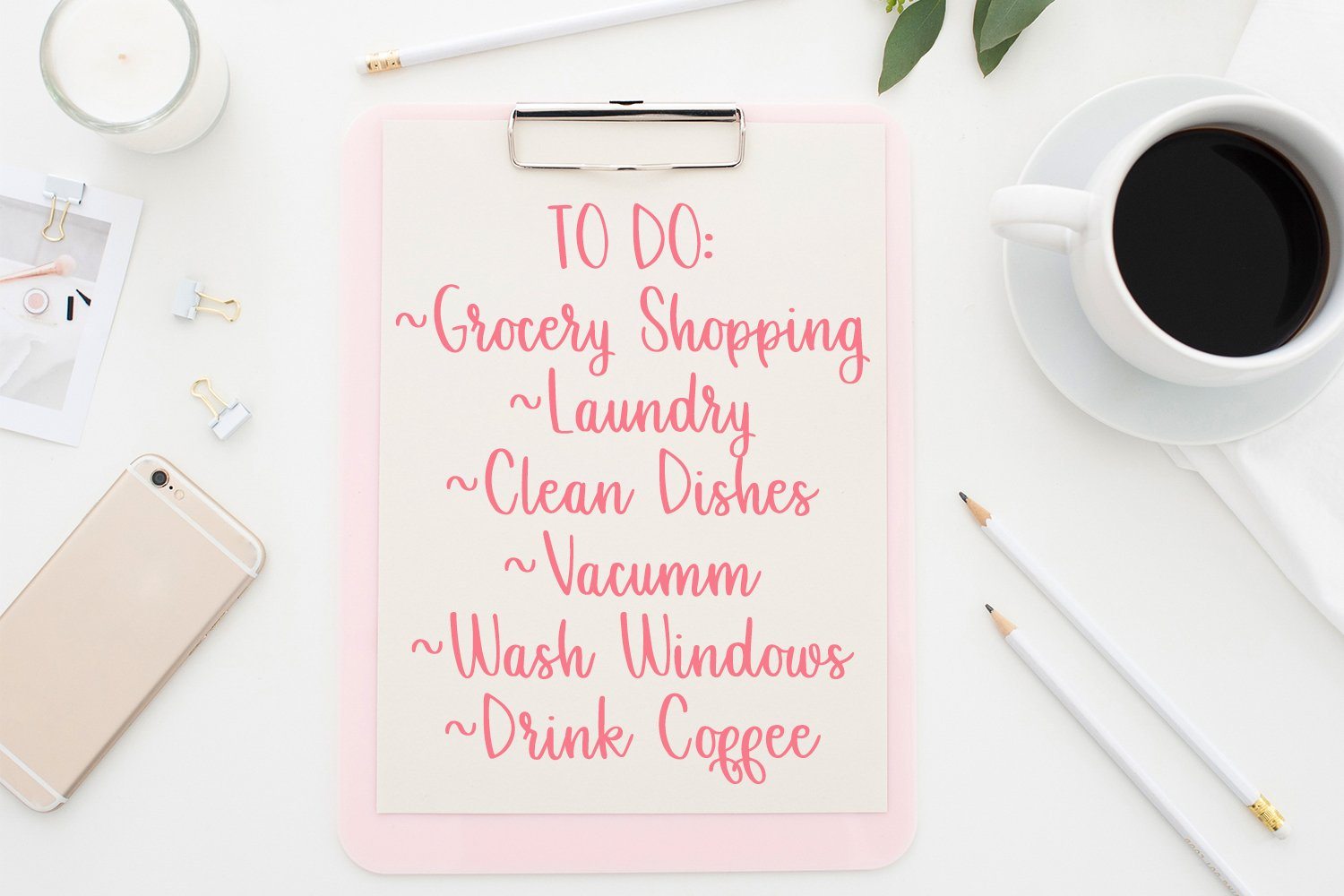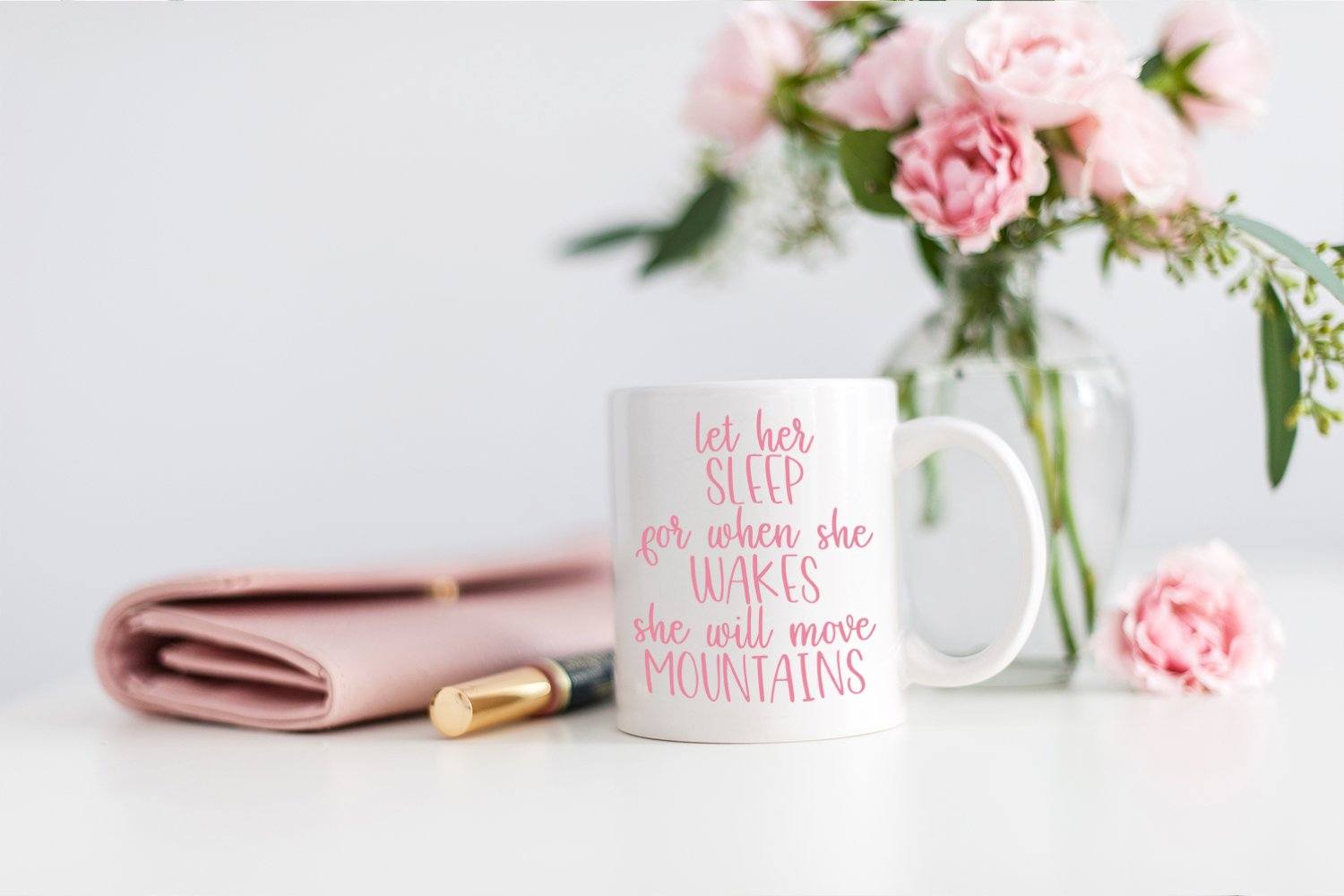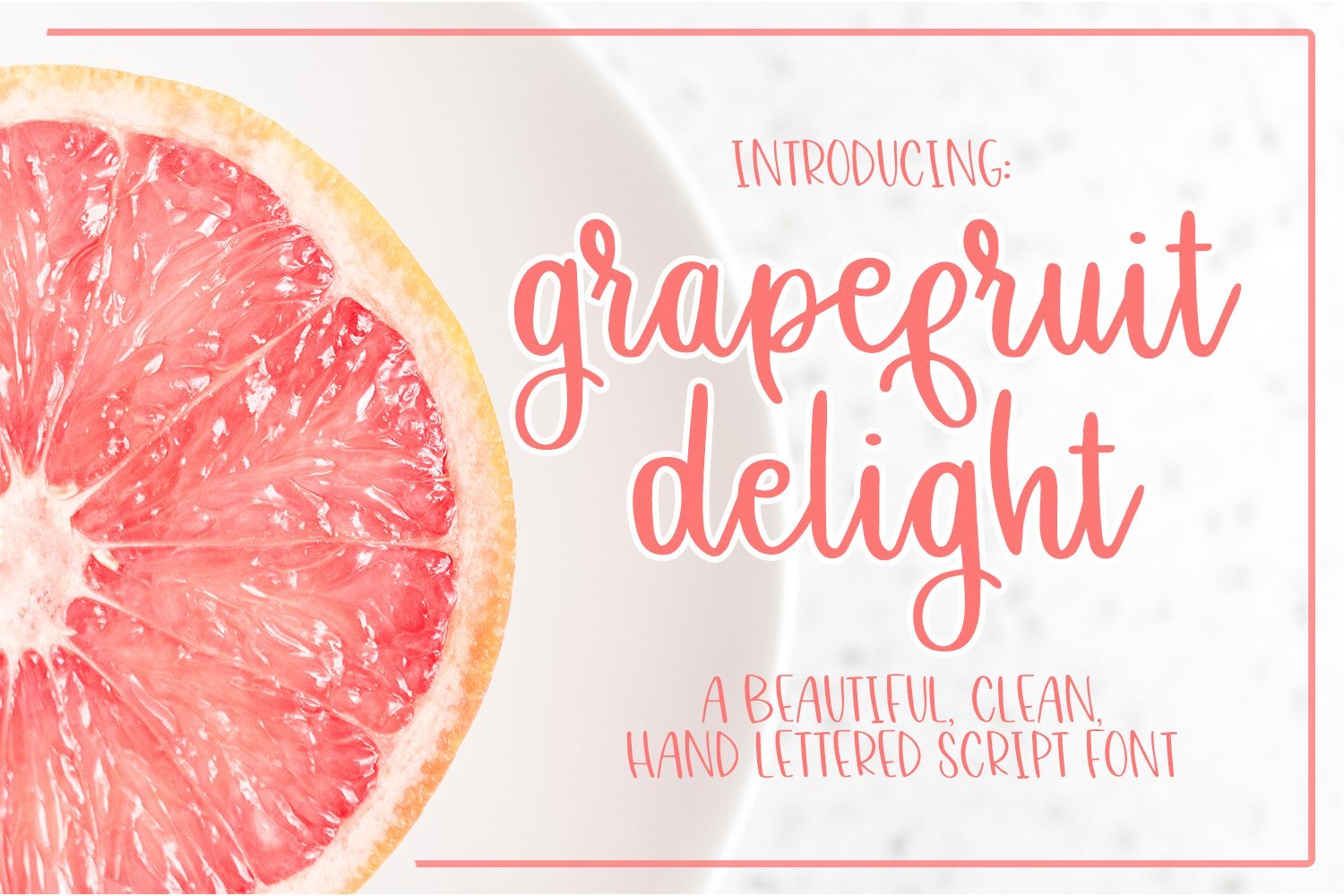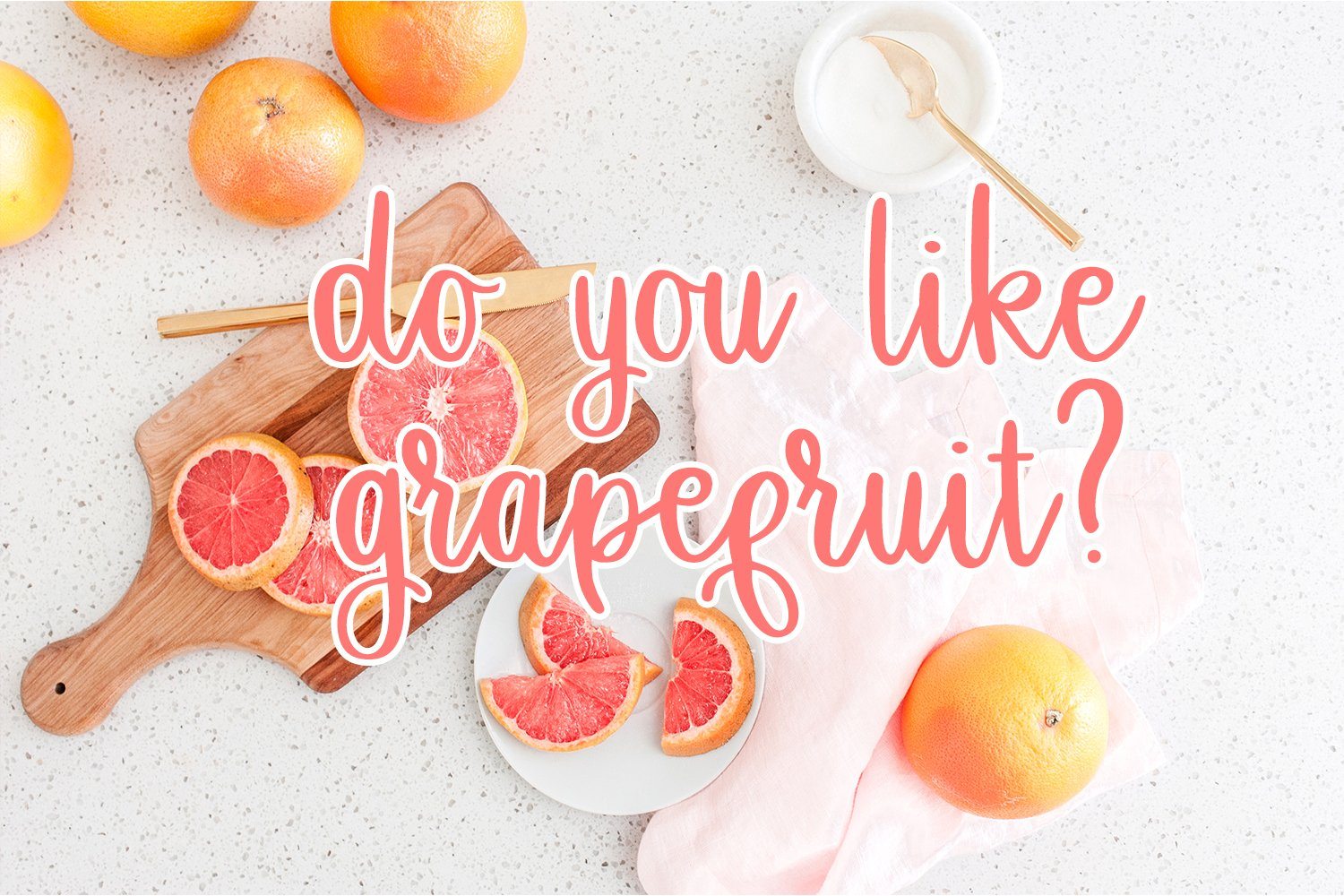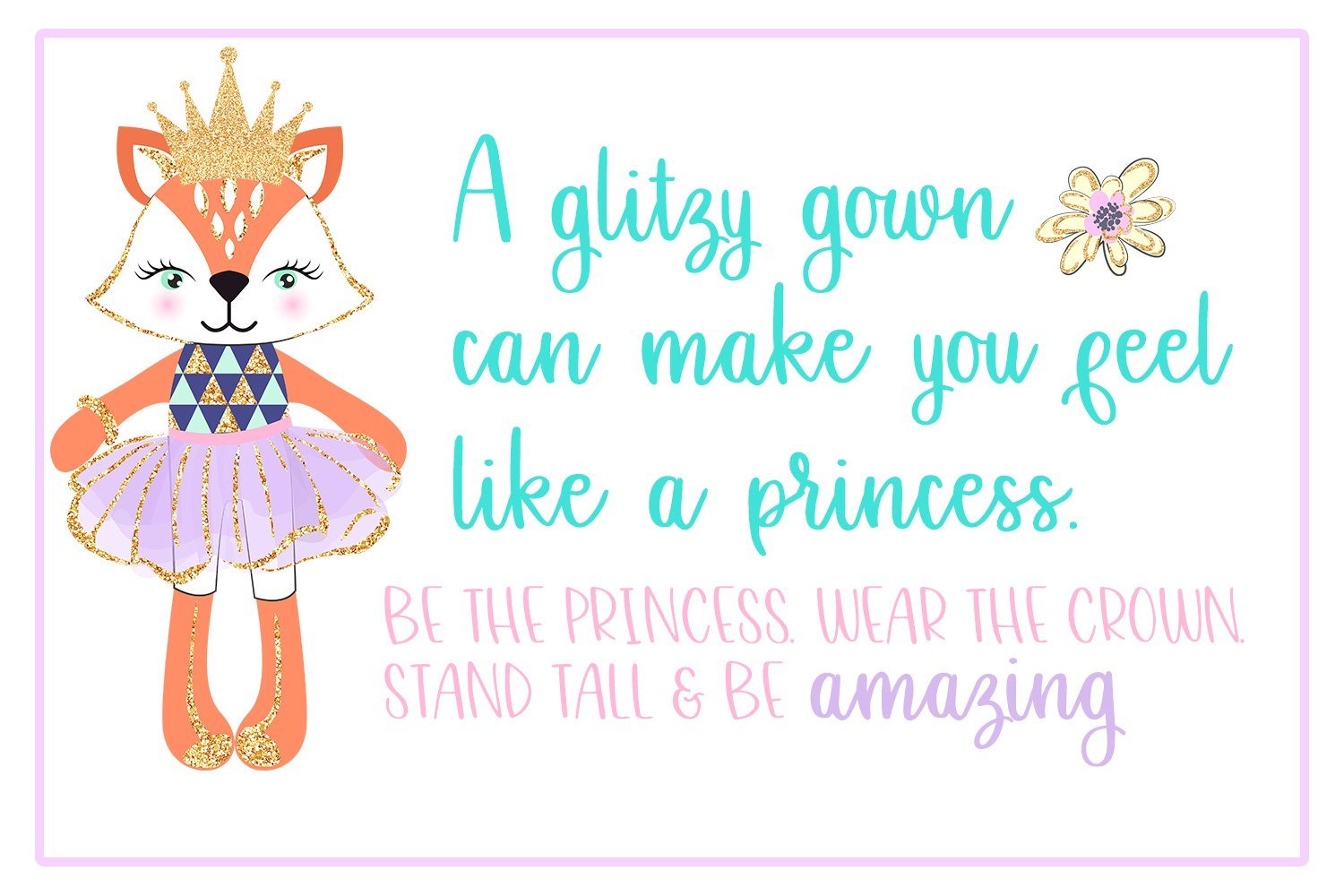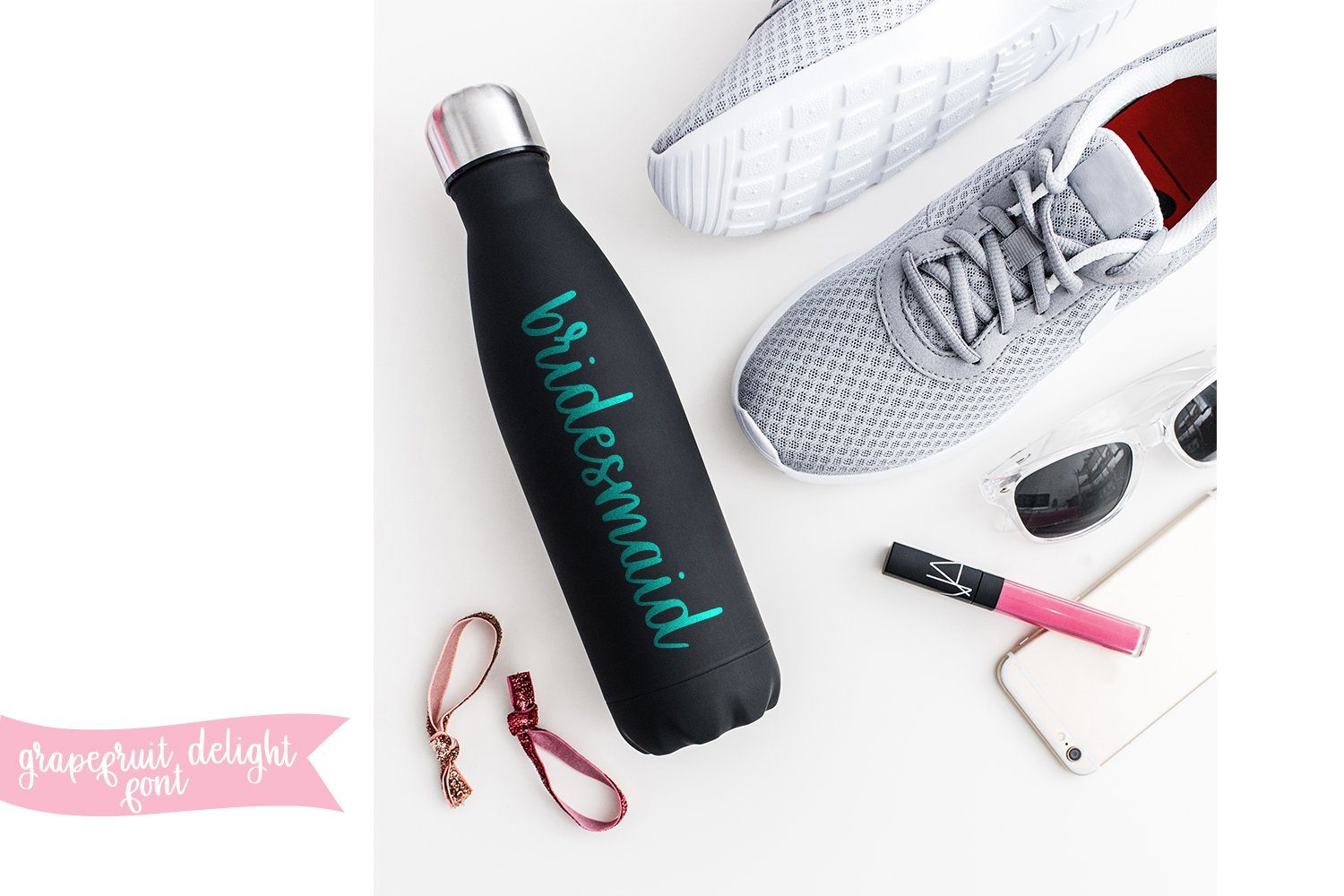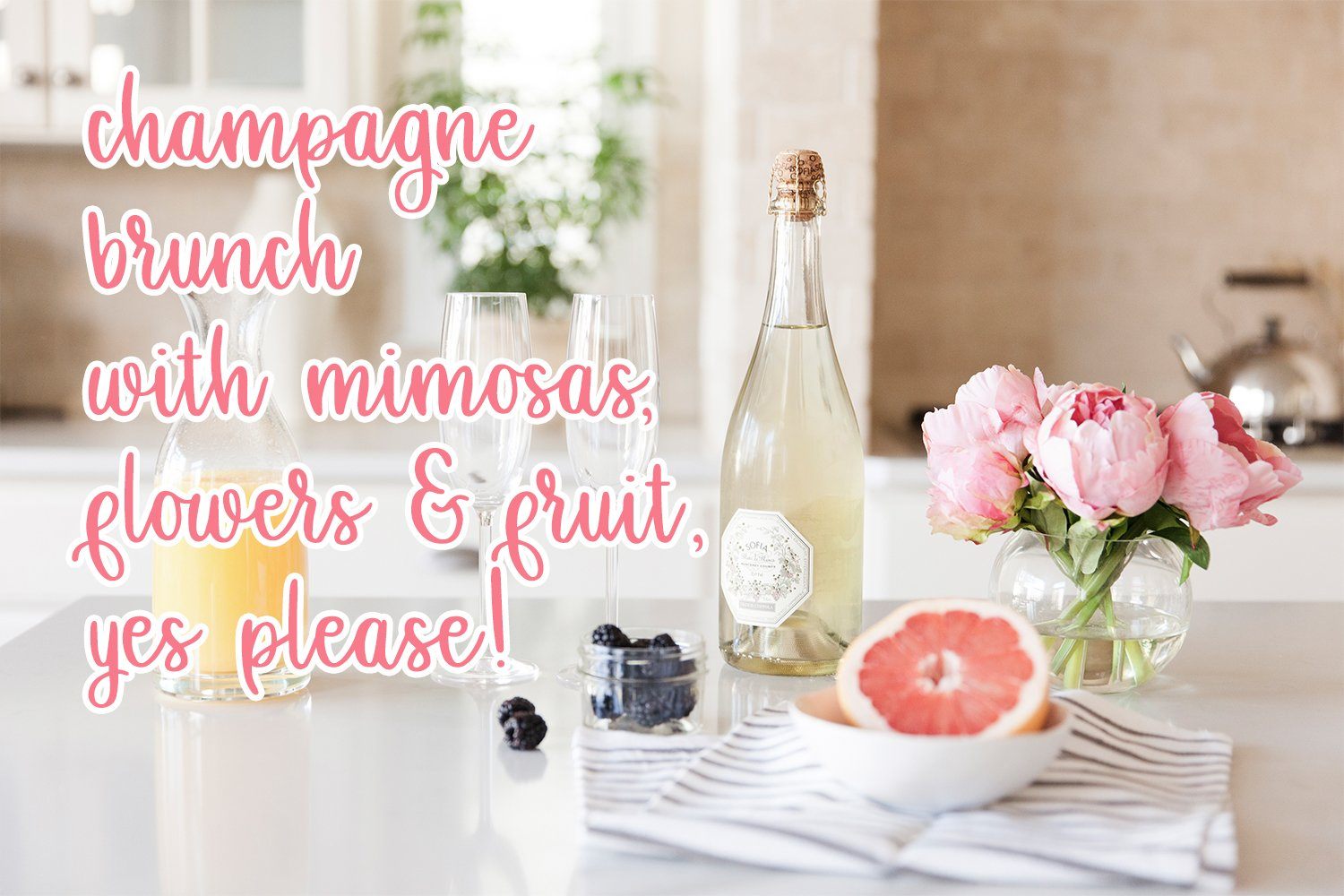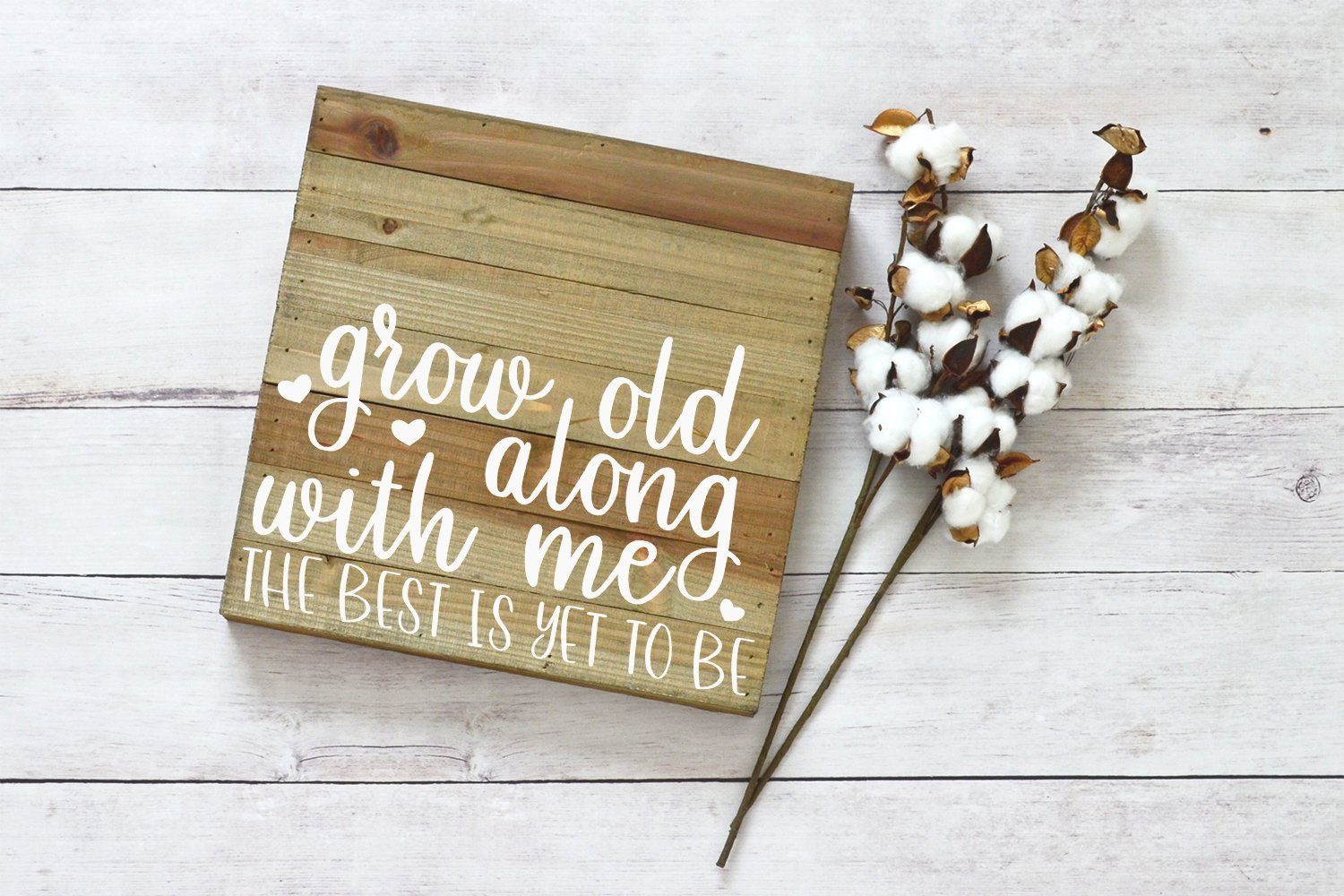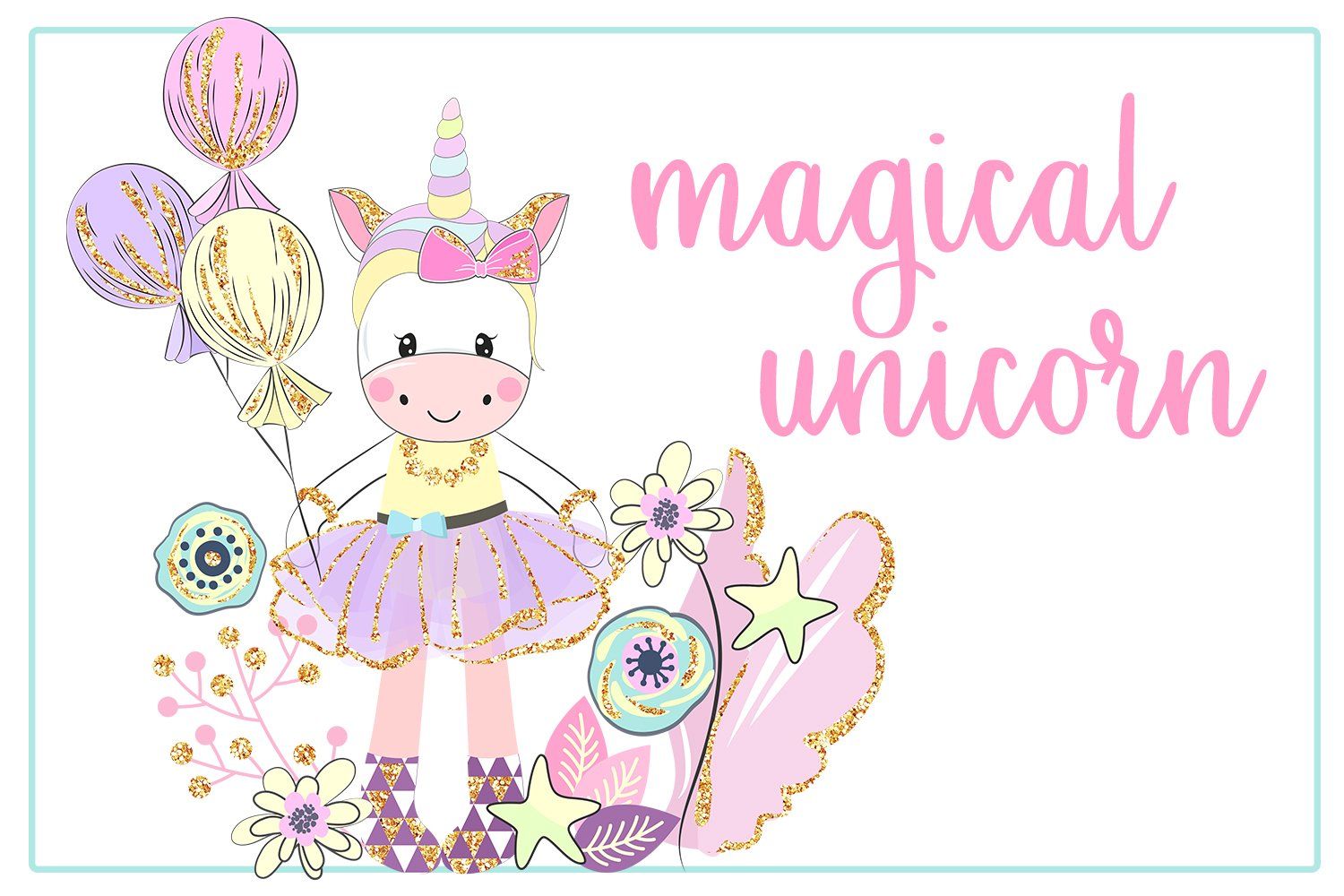
Grapefruit Delight – Hand Lettered Script Font
About Grapefruit Delight – Hand Lettered Script Font
Here I have ‘ Grapefruit Delight ‘ – a beautiful, clean, hand lettered script font. It was designed with elegant, magical & whimsical designs in mind. Purchase today to start those creative juices flowing in designing something gorgeous and viral! This listing comes with Grapefruit Delight Script , which has Uppercase, Lowercase, Numbers, Punctuation, and Ligatures. This font is perfect for crafting and looks awesome on T-shirts, mugs, cards, invitations and so much more! Font files come in OTF & TTF formats and work in all software like Word, Photoshop, Illustrator, Inkscape and more.